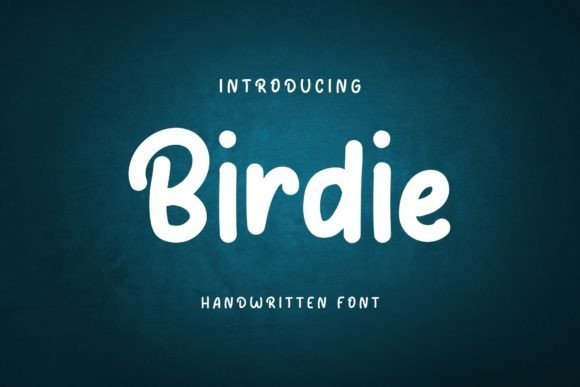
The Perfect Blend of Playfulness and Authenticity: Introducing Birdie Font
Do you remember the moment when a simple doodle turned into a masterpiece? Maybe it was a late-night brainstorming session, or a spontaneous sketch during a coffee break. Whatever the case, you know that spark of creativity is what drives us as designers. It’s that feeling of bringing a project to life, of watching your ideas unfold and take shape.
That’s exactly what Birdie Font is all about – capturing the essence of playfulness and authenticity in every design. This adorable handwritten font is the perfect addition to any project, from blog posts to branding, ads to invitations. Whether you’re a seasoned designer or just starting out, Birdie Font is a valuable asset that will elevate your creations and make them truly special.
Birdie Font Key Features
- Font Family: Birdie Font is a unique, handwritten font designed for various creative purposes.
- Unique Characteristics: Birdie Font features a playful, cursive style with varying line widths and expressive flourishes.
Birdie Font Review
I’ve had the chance to work with Birdie Font, and here’s my honest take:
The Birdie Font has a unique, playful style that can add a touch of whimsy to your design. The font’s rounded edges and cursive elements make it perfect for creating a friendly, approachable atmosphere.
- Customizable: Birdie Font offers a range of weights and styles to suit your design needs.
- Fun for illustrations: The font’s playful nature makes it an excellent choice for creating illustrations and graphics.
While Birdie Font is a solid choice, it’s not without its limitations:
- Limited legibility: The font’s playful style can make it difficult to read at small sizes or in low-light conditions.
- No extensive language support: Birdie Font primarily supports Latin-based languages, which may limit its use for international projects.
Overall, I think Birdie Font is a great choice for projects that require a playful, friendly atmosphere. While it may have some limitations, its unique style and customizability make it a valuable addition to any designer’s toolkit.
Tips for Getting the Most Out of Birdie Font
Use Birdie Font to add a playful and whimsical touch to your designs. Try pairing it with bold or cursive fonts for a fun and creative look. You can also use Birdie Font to create custom watermarks or logos.
Birdie Font is perfect for:
- Food and drink branding
- Party and event invitations
Alternatives to Birdie Font for Designers
Lato is a sans-serif font designed by Łukasz Dziedzic. It is a modern and clean font, perfect for use in headings, titles, and body text. Lato is great for digital products, websites, and mobile apps. It is a more formal and professional alternative to Birdie Font, which is ideal for a wide range of projects.
Comparison to Birdie Font: Lato is more geometric and structured, while Birdie Font is more playful and casual. Lato is suitable for longer blocks of text, whereas Birdie Font is better for short titles and headings.
Montserrat is a sans-serif font designed by Julieta Ulanovsky. It is a versatile font that works well in a variety of contexts, from digital products to print materials. Montserrat is great for use in headings, titles, and body text, and is particularly well-suited for modern and minimalist designs.
Q: Can I customize Birdie Font to create a new font style?